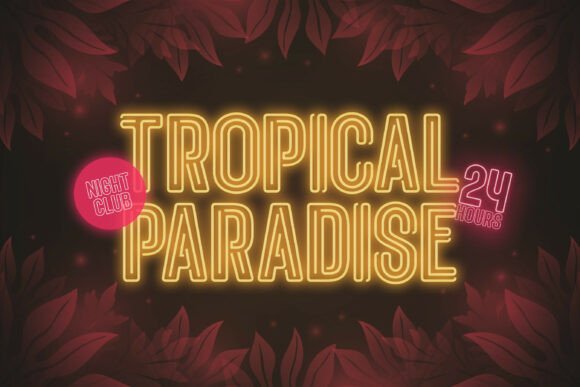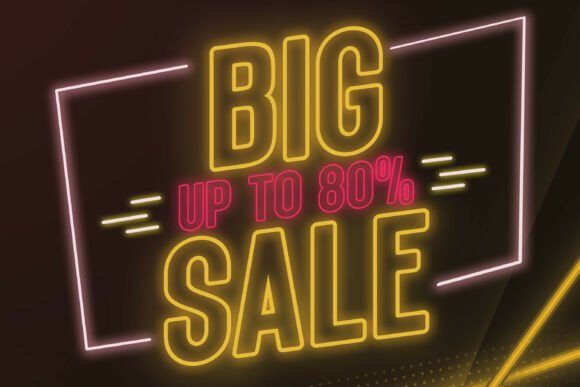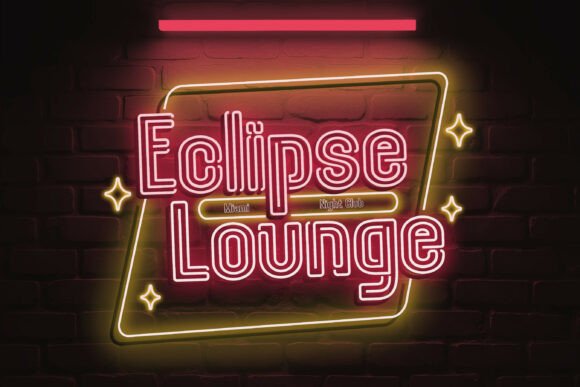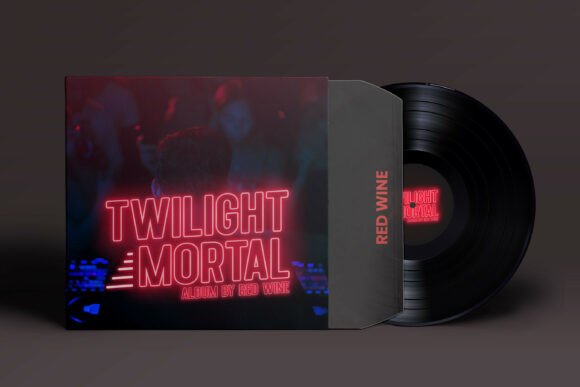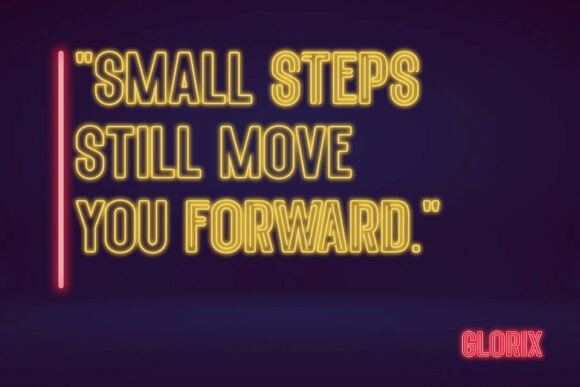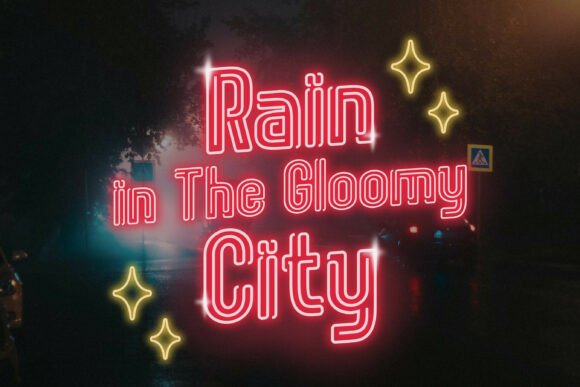
Introducing Glorix Font: The Modern Neon Typeface for Bold and Futuristic Designs
In the world of typography, fonts play a crucial role in conveying the tone and personality of a brand or design. For designers and crafters looking to make a statement, Glorix Font is an excellent choice. This modern neon typeface is specifically crafted to deliver a bold, energetic, and futuristic visual impact, making it perfect for a wide range of applications.
The Design of Glorix Font
Glorix Font boasts a unique design that combines clean rounded strokes with glowing line structures, evoking the iconic look of neon lights. The font’s sleek and contemporary design ensures that it remains versatile and adaptable to various design contexts. The rounded strokes add a touch of friendliness and approachability, while the glowing lines inject a sense of energy and dynamism.
Glorix Font is an excellent choice for designers and crafters working on various projects, including:
- Logos: Create a bold and memorable logo that instantly captures attention with Glorix Font.
- Posters: Add a touch of neon glamour to your posters and make them stand out from the crowd.
- Headlines: Use Glorix Font to create attention-grabbing headlines that draw readers in.
- Nightlife Branding: Glorix Font is perfect for creating vibrant and energetic branding for nightlife events, bars, and clubs.
- Music Artwork: Add a futuristic touch to your music artwork, album covers, and promotional materials.
- Event Promotions: Create eye-catching event promotions, flyers, and posters with Glorix Font.
- Fashion Visuals: Use Glorix Font to add a touch of glamour and sophistication to your fashion visuals and branding.
- Digital Displays: Glorix Font is optimized for digital displays, making it perfect for LED screens, digital signage, and more.
Why Choose Glorix Font?
So, why should designers and crafters choose Glorix Font for their projects? Here are just a few reasons:
- Unique Design: Glorix Font boasts a unique and distinctive design that sets it apart from other fonts.
- Versatility: The font’s sleek and contemporary design makes it adaptable to various design contexts and applications.
- Attention-Grabbing: Glorix Font is designed to capture attention and make a statement.
- Easy to Read: Despite its bold and energetic design, Glorix Font remains easy to read, even at smaller sizes.
Tips for Using Glorix Font
To get the most out of Glorix Font, here are a few tips:
- Use it boldly: Glorix Font is designed to make a statement, so don’t be afraid to use it boldly and prominently.
- Experiment with colors: The glowing line structures of Glorix Font look amazing in a variety of colors, so experiment to find the perfect hue for your design.
- Pair it with contrasting fonts: Pair Glorix Font with contrasting fonts to create visual interest and hierarchy.
| Font Name | Glorix Font |
| Author | Twistystd |
In conclusion, Glorix Font is an excellent choice for designers and crafters looking to add a touch of neon glamour to their designs. With its unique design, versatility, and attention-grabbing qualities, Glorix Font is perfect for a wide range of applications. Whether you’re working on a logo, poster, headline, or digital display, Glorix Font is sure to make a statement and leave a lasting impression.